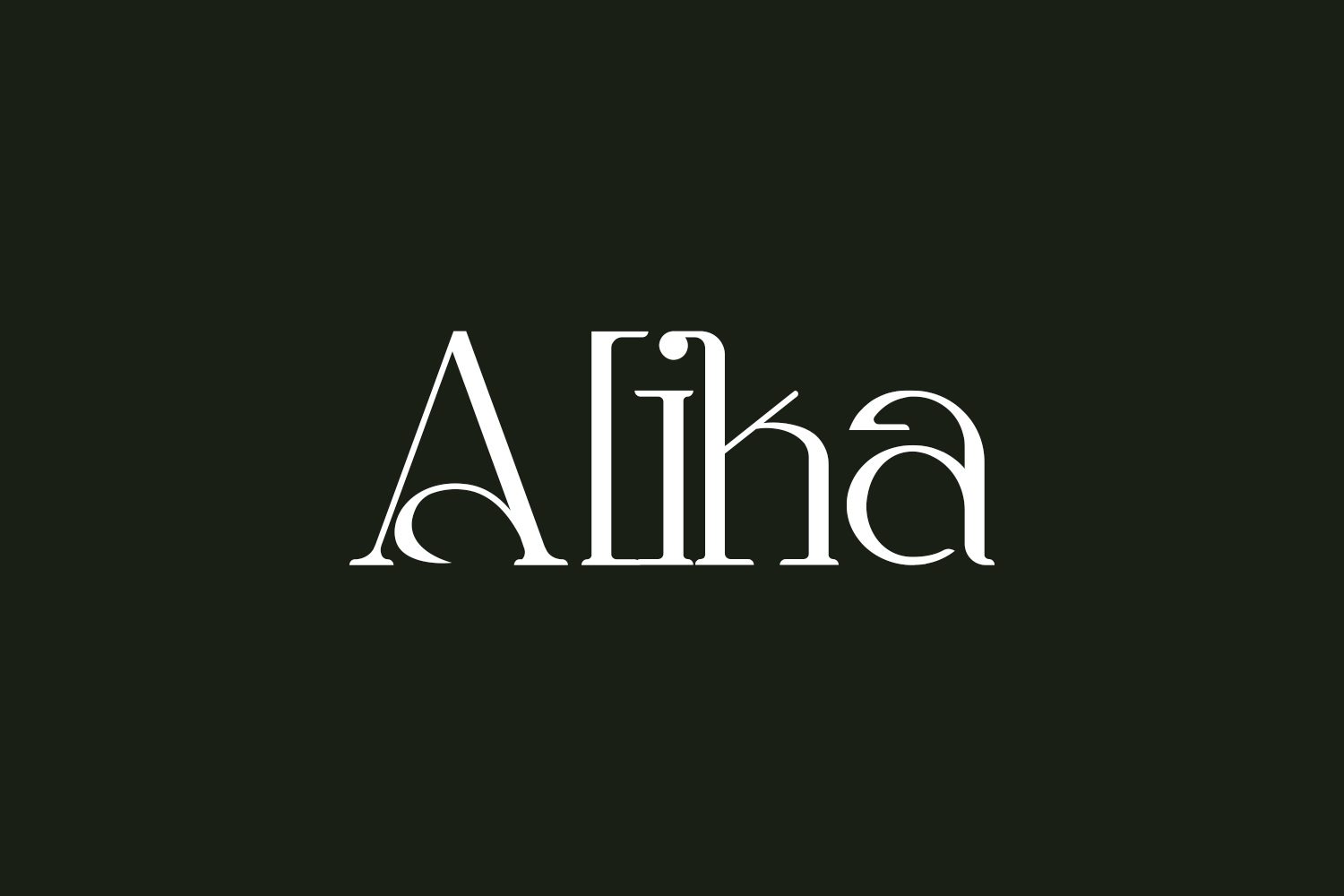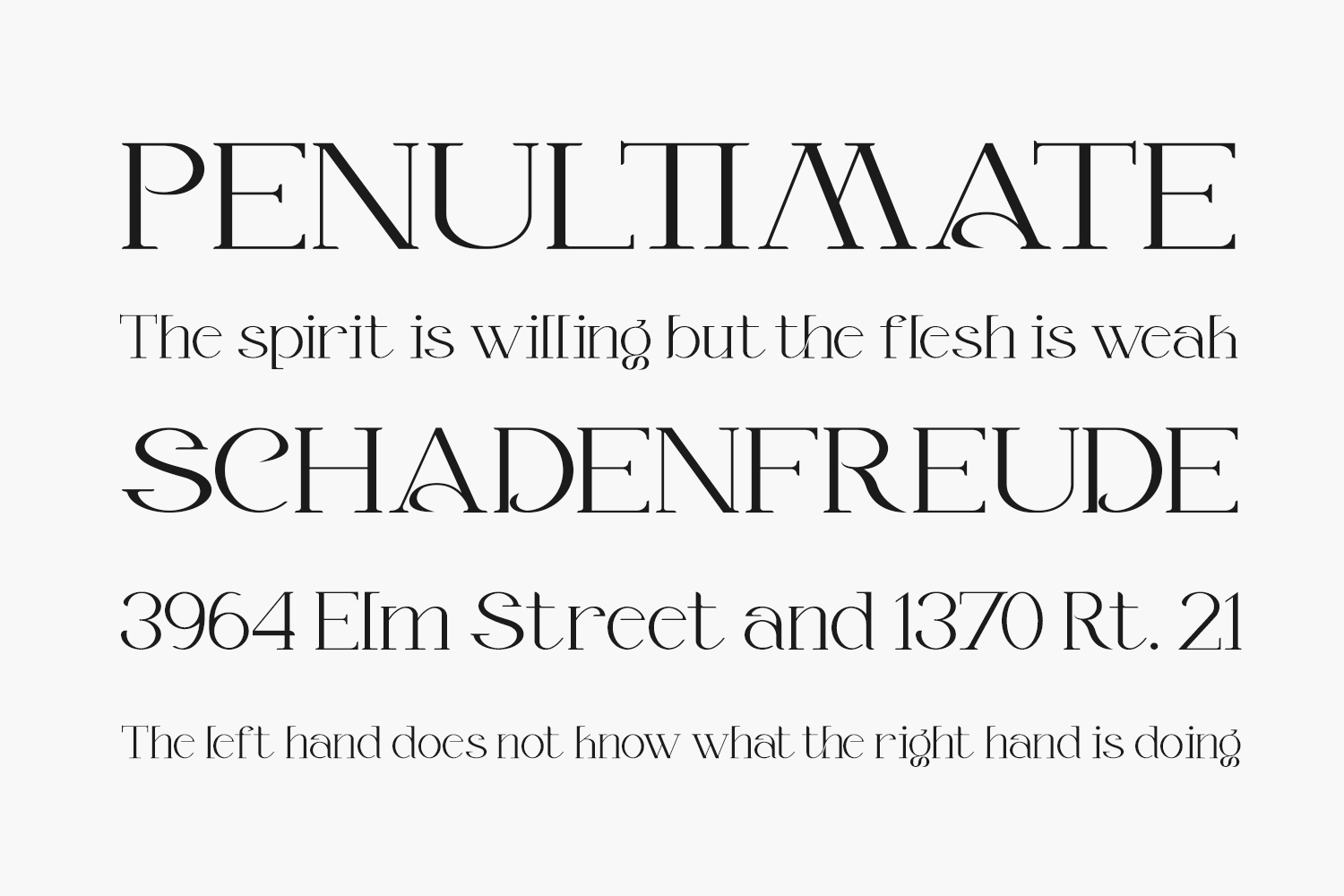
Alika Free Font Family is a thin lettered and light serif font. This original look will appeal to a wide range of crafty ideas, from letterheads and titles, to stationery. Alika Free Font Family was designed by Storytype Studio and is free for personal use only. Please purchase the full version for commercial use.